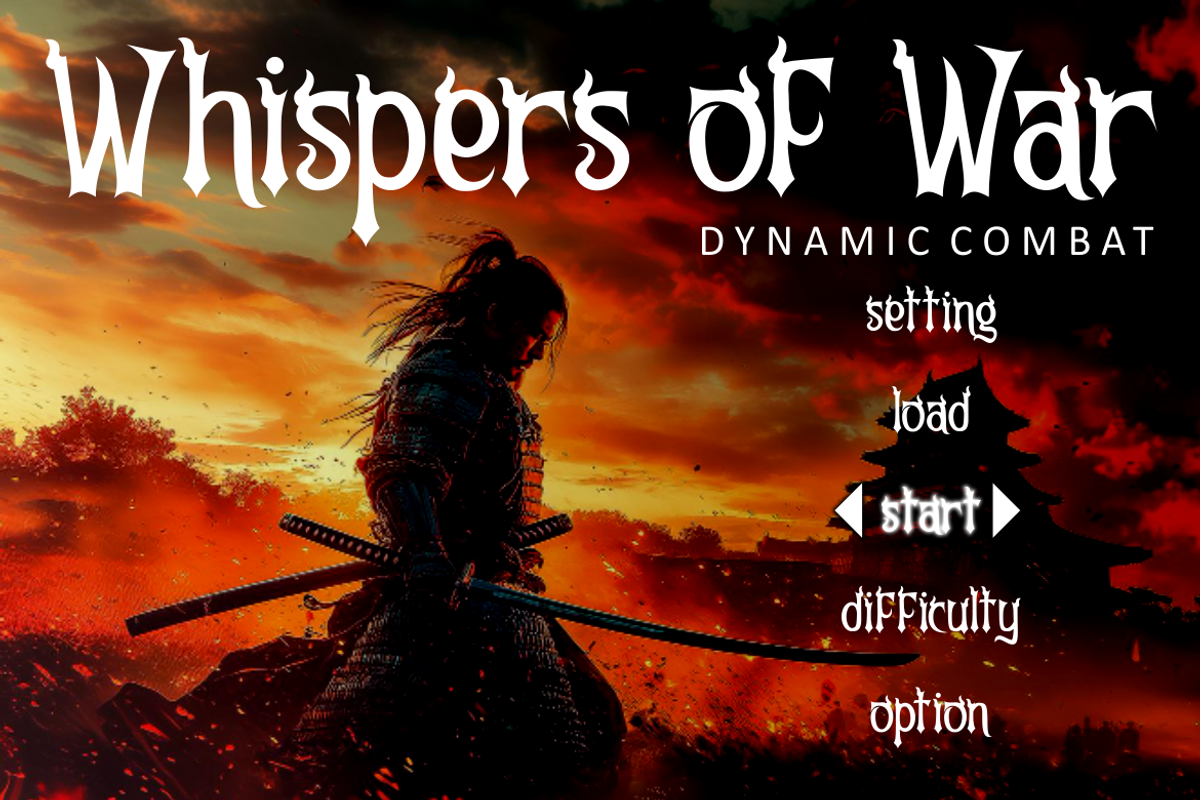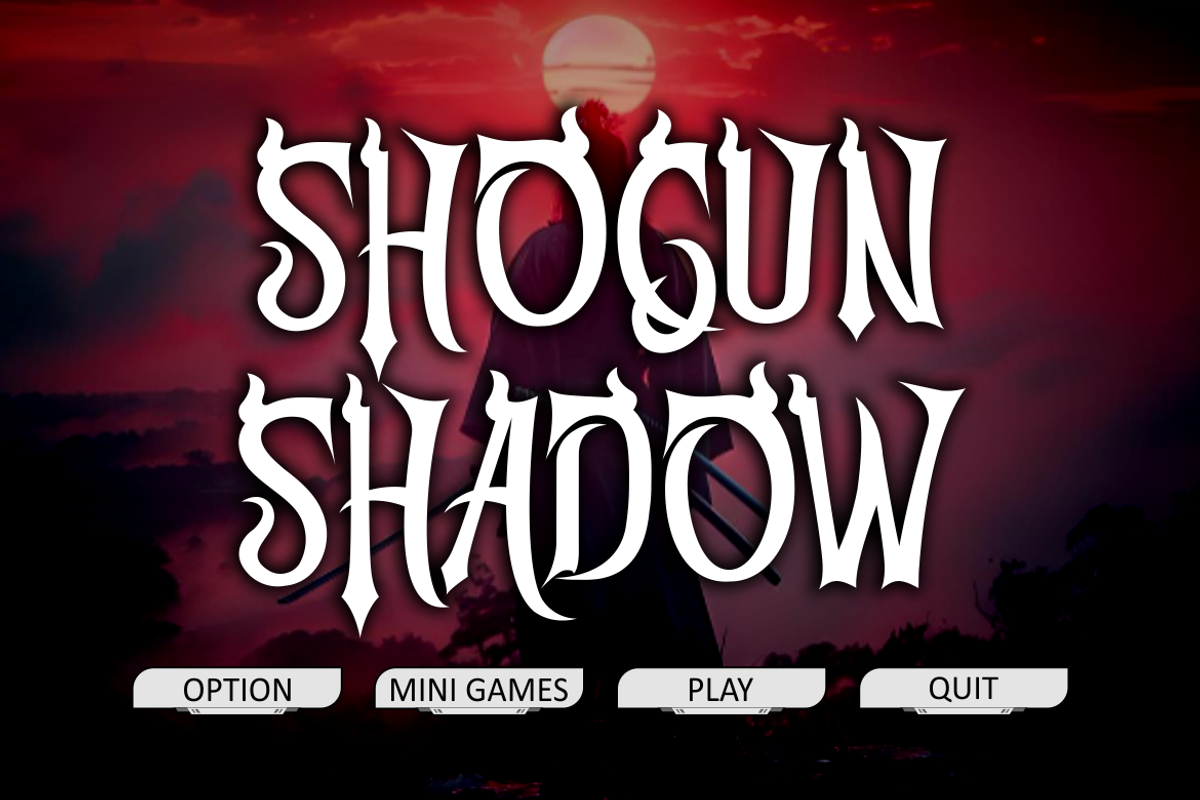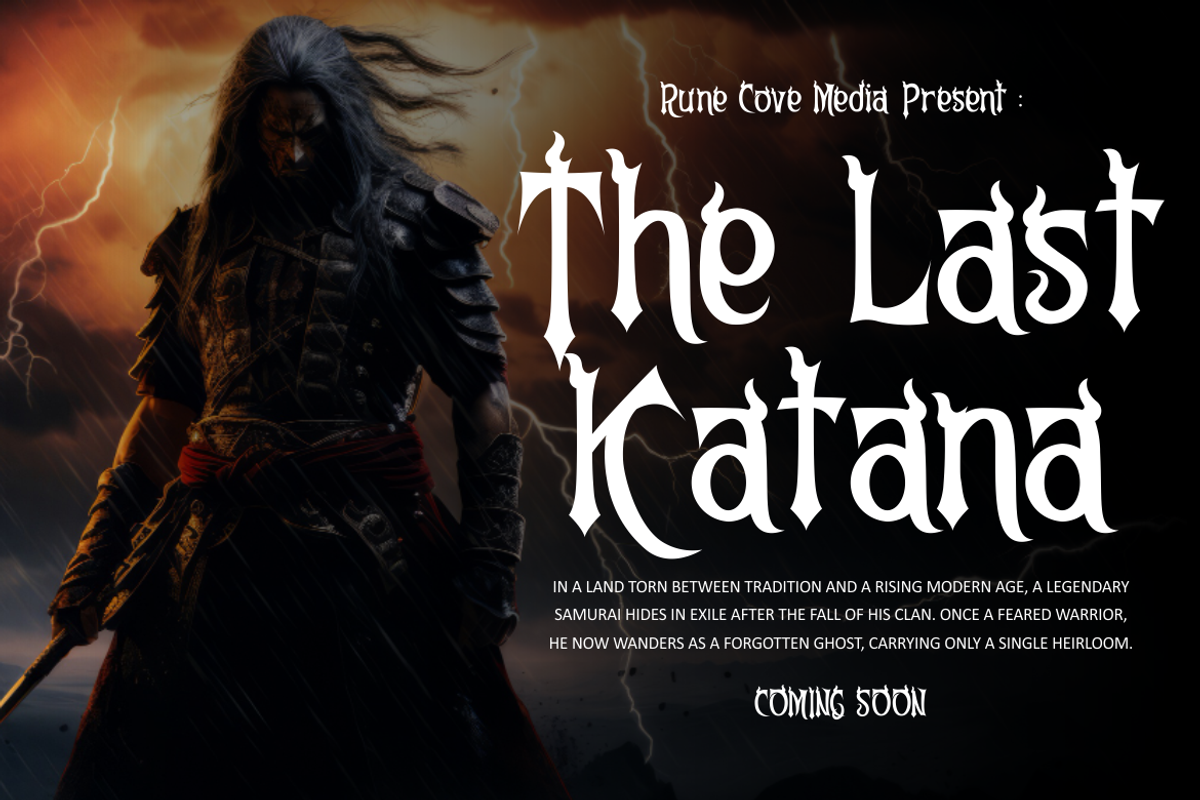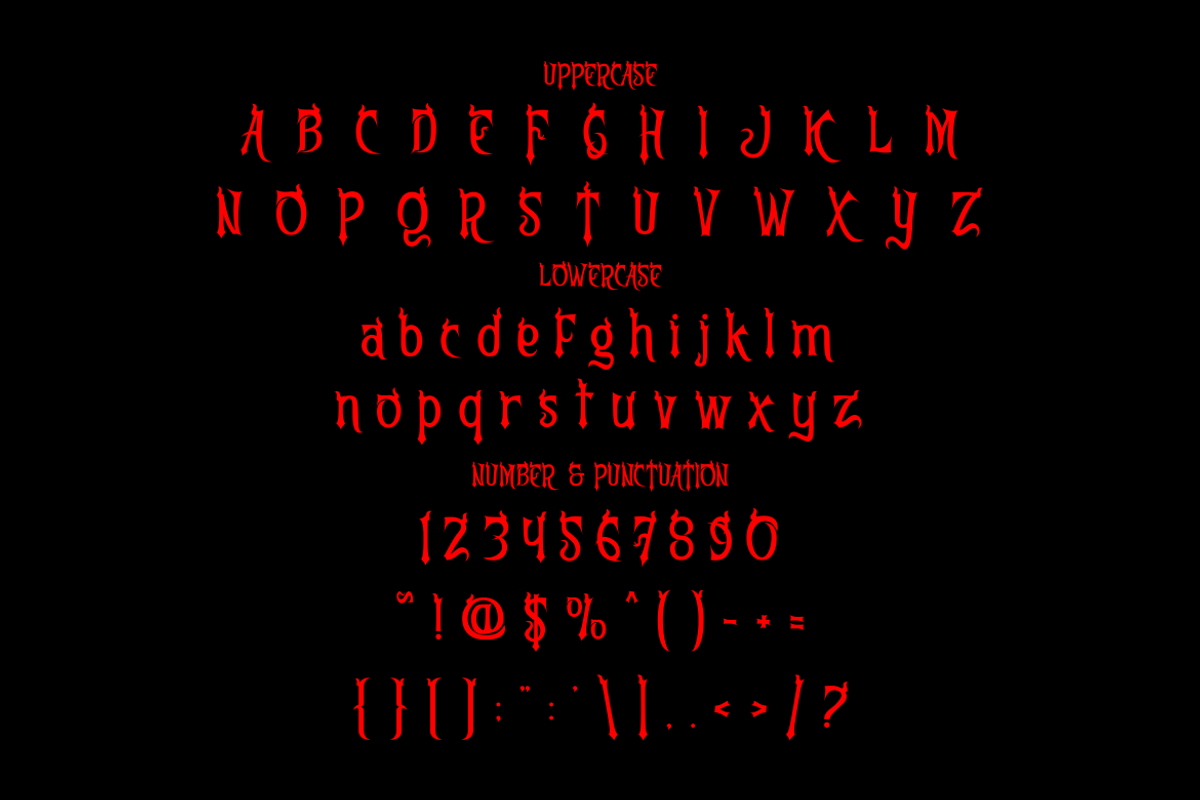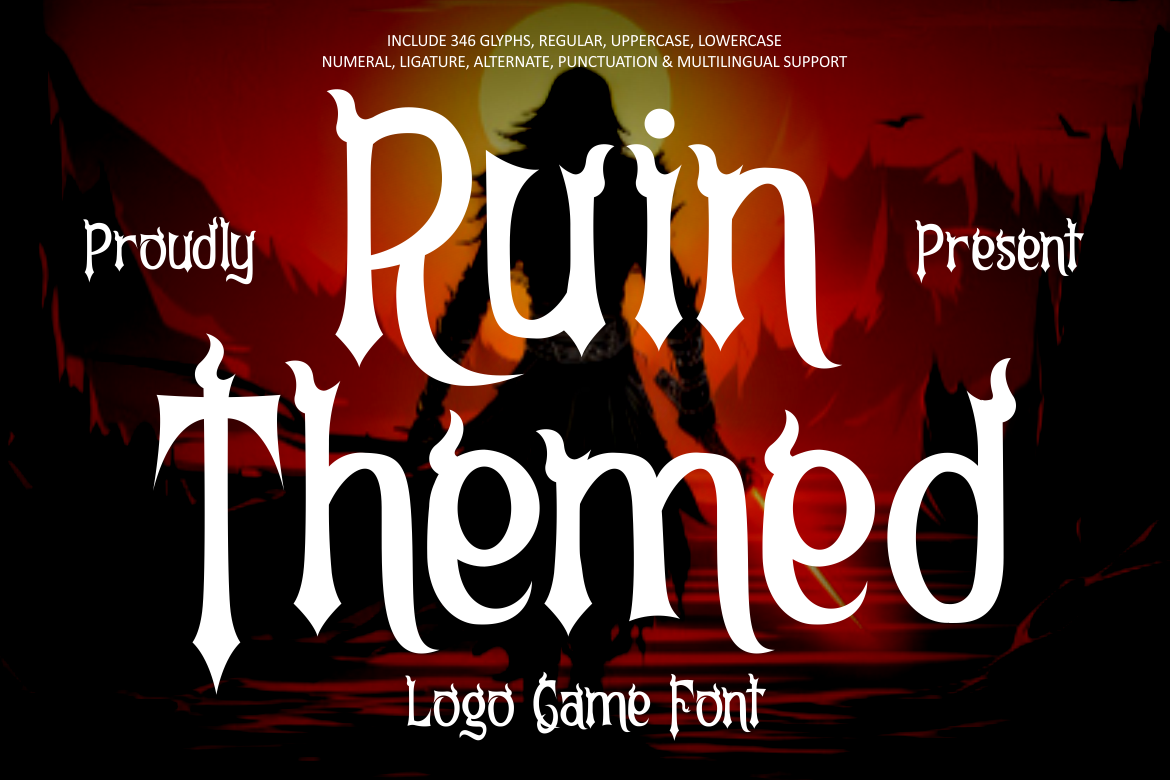
Ruin Themed Logo Game Font
Ruin Themed Logo Game Font is a powerful display typeface built with dramatic proportions and confident strokes. The letterforms appear tall and commanding, with sharp terminals and firm vertical emphasis. Stroke contrast feels deliberate, mixing thick main stems with narrower inner curves. Subtle irregularities add a distressed character without reducing readability. The overall structure remains balanced, allowing headlines to feel aggressive yet controlled. Curved details bring a dramatic rhythm, while angular cuts reinforce a dark fantasy tone. This font suits projects that demand intensity, authority, and strong visual presence. It works especially well for game titles, logo branding, and bold headlines that need instant recognition. Ruin Themed Logo Game Font also supports cinematic storytelling, where typography must amplify atmosphere and emotion. The font maintains clarity at large sizes, making it ideal for posters, cover designs, and promotional visuals.
This font excels in game branding, especially for action, fantasy, or dark adventure themes. It enhances logos with a heroic and ominous identity. Marketing materials gain impact through its assertive style and confident spacing. Titles feel immersive, dramatic, and memorable across digital and print formats. Packaging designs benefit from its bold personality and strong silhouette. The font also fits movie titles, magazine covers, and creative merchandise. Designers can rely on its expressive shapes for headlines, stickers, and visual campaigns. Despite its dramatic tone, the font stays versatile and legible. Ruin Themed Logo Game Font helps brands communicate strength, mystery, and depth. It provides a clear typographic voice for projects that demand presence and atmosphere.